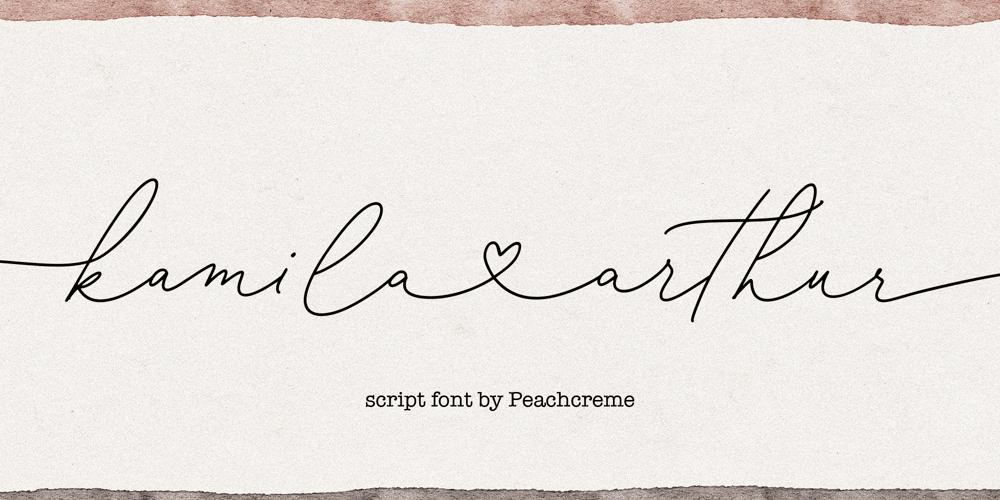
Kamila Arthur Font Family was designed by Gulya Yeap and published by PeachCreme. Kamila Arthur contains 1 styles and family package options. “Kamila Arthur” was inspired by clean handwriting with a natural monoline flow. It contains lovely beginning, ending and connecting lowercase heart swashes. It appears to be an excellent tandem for minimalist wedding designs. Please, note that heart glyphs connect only lowercase letters.